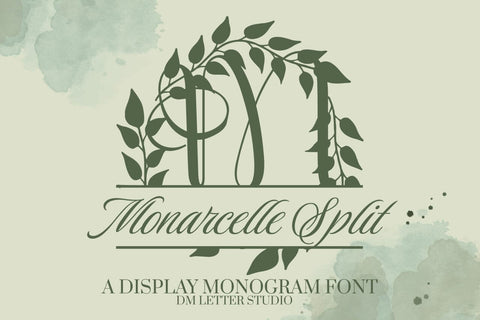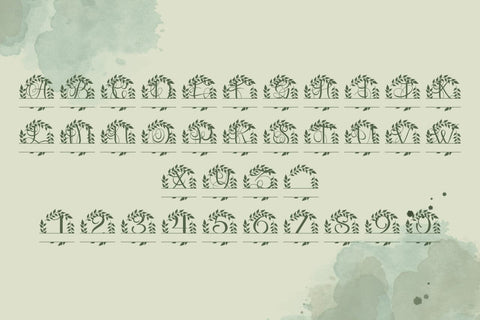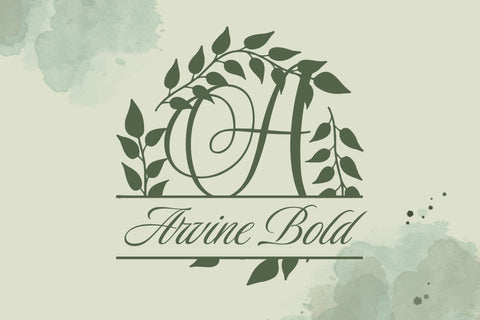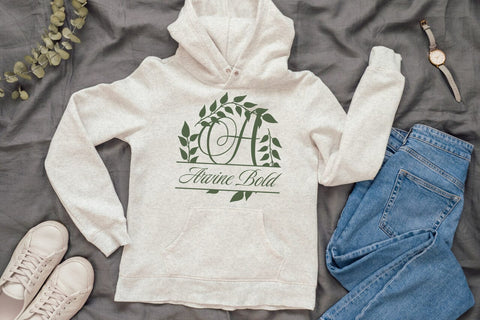
Monarcelle Split Monogram Font
Meet Monarcelle Split Monogram Font
Monarcelle Split Monogram Font turns initials into custom nameplates in seconds. The letterforms feel poised and elegant. A clean center split leaves room for names, dates, or short words. Because spacing stays balanced, results look polished with minimal effort. Use it for wedding gifts, family signs, door hangers, tumblers, ornaments, and boutique packaging. Moreover, this Split Monogram Font pairs beautifully with a simple sans or light script, so every layout stays readable and refined.
Where this Split Monogram Font shines
Set a single initial, then place the family name inside the split. Next, try couple names for keepsakes or venue names for signage. Since proportions favor clarity, designs scale from large wall art to tiny tags. As a result, Monarcelle Split Monogram Font works perfectly for Cricut, Glowforge, lasers, and vinyl projects.
Design tips for Monarcelle Split Monogram
Keep the main initial large to showcase the refined structure. Place the split line at center or slightly low for balance. Meanwhile, pick a clean secondary font for the text inside the split. Because the look is airy, metallic accents and natural textures add instant value—think champagne foil on blush card or matte black on walnut wood. However, keep names short so everything remains readable at smaller sizes.
Uppercase alphabet optimized for split monograms
Matching lowercase, numbers, punctuation
Curves tuned for engraving, foil, laser cutting, and clean vinyl work
Why makers choose this Split Monogram Font
You want fast personalization that still looks high-end. Monarcelle Split Monogram Font delivers. It helps you craft custom gifts, signs, and décor in minutes, while keeping your shop style consistent across many product types. Therefore, one font can anchor an entire line of name-ready pieces.